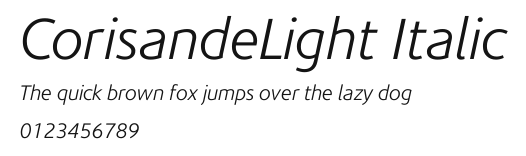
CorisandeLight Italic Preview
• Font Name: CorisandeLight Italic
• Full Font Name: CorisandeLight Italic
• PostScript Name: CorisandeLightItalic
About CorisandeLight Italic.ttf
CorisandeLight Italic.ttf is a modern, elegant sans-serif font designed for ultimate readability and visual harmony. Perfect for branding, headlines, web design, and print materials.